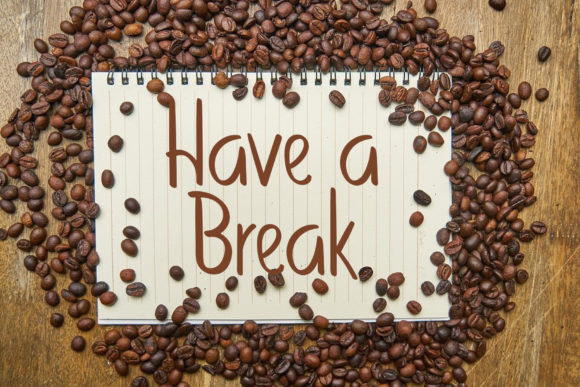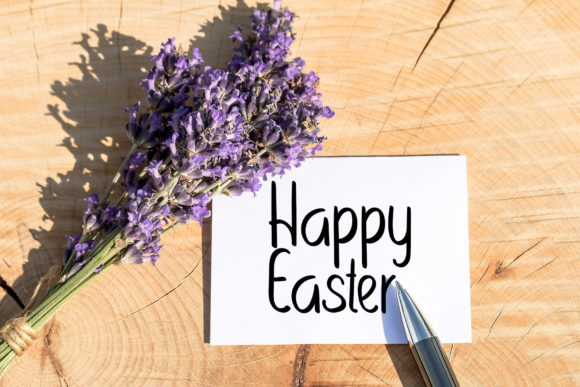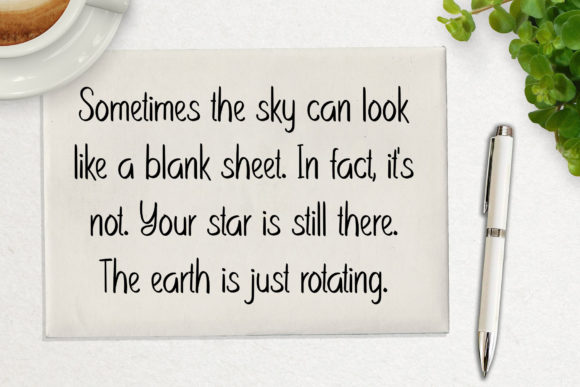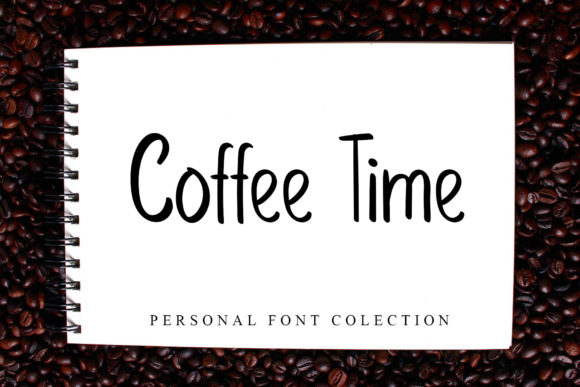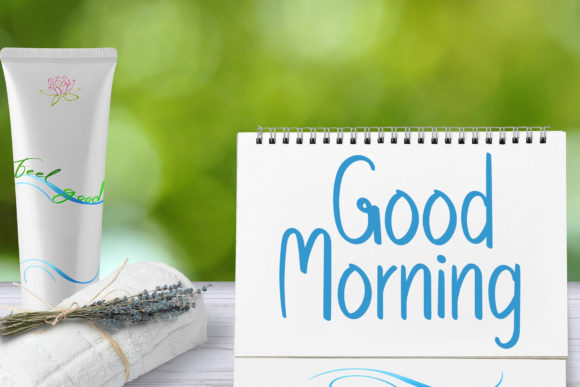
Coffee Lover Font
About Coffee Lover Font
Coffee Lover is a cute and minimal handwritten font that brings a delightful touch to your designs. With its sweet and vibrant style, this font is an excellent choice for adding a pop of life and energy to your projects.
The simplicity and charm of Coffee Lover make it versatile and appealing. Whether you’re designing a coffee shop logo, creating cute social media graphics, or crafting personalized stationery, this font will infuse your designs with a touch of playfulness and joy.
With its handwritten aesthetic, Coffee Lover adds a personal and warm feel to your text. Each letter carries a sense of authenticity and liveliness, making it perfect for capturing attention and creating a connection with your audience.
Let Coffee Lover be the ingredient that brightens up your designs and brings a smile to people’s faces. Whether you’re designing coffee-related merchandise, creating inspirational quotes, or simply adding a touch of whimsy to your artwork, this font will create a captivating and inviting atmosphere.
Embrace the sweet and lively style of Coffee Lover and watch as your designs come alive. Let this font be your companion in creating cheerful and engaging visual experiences that leave a lasting impression.